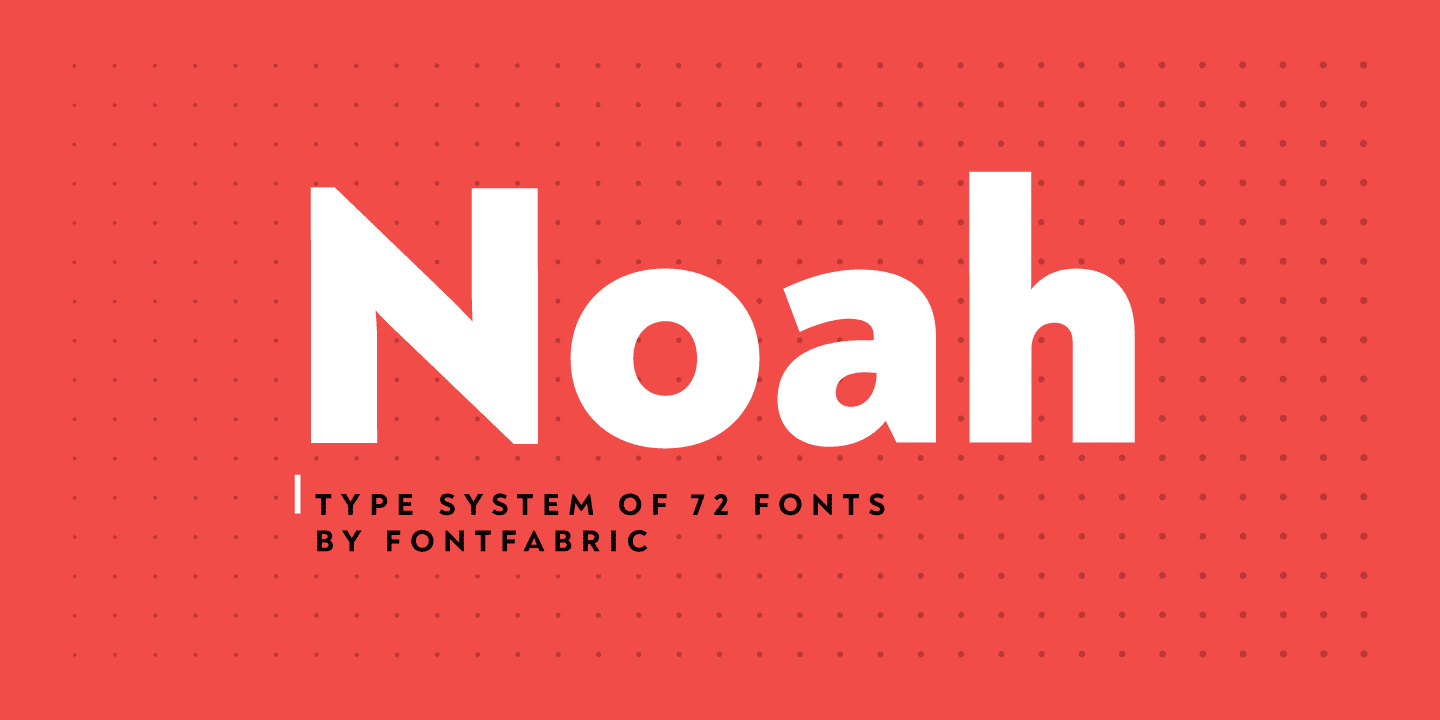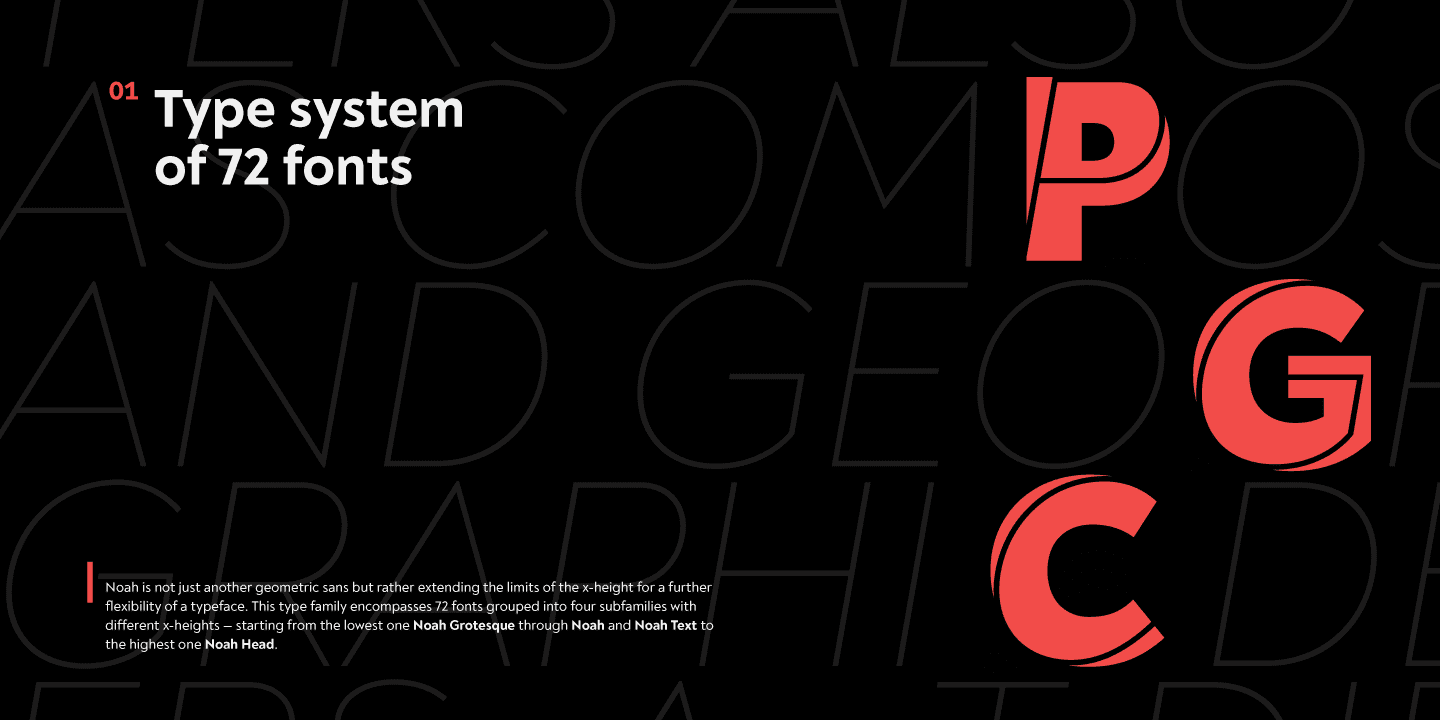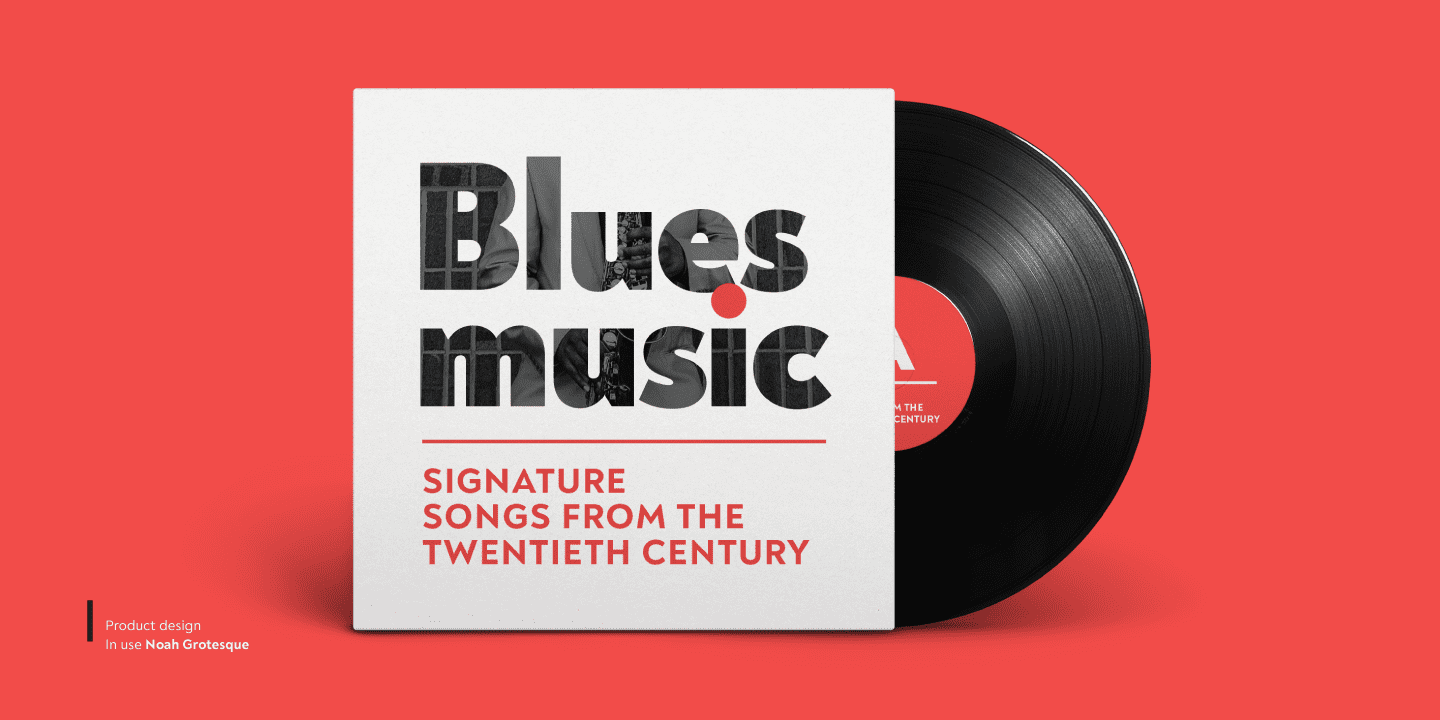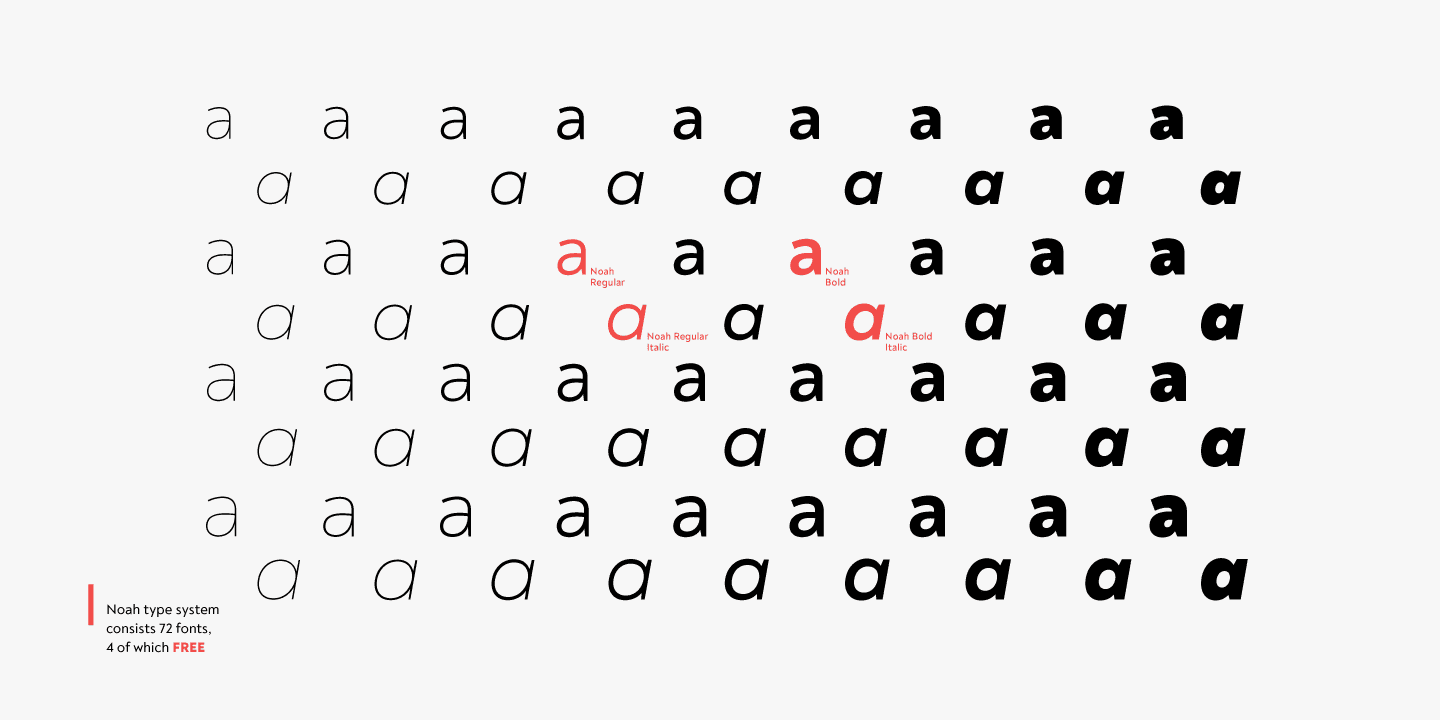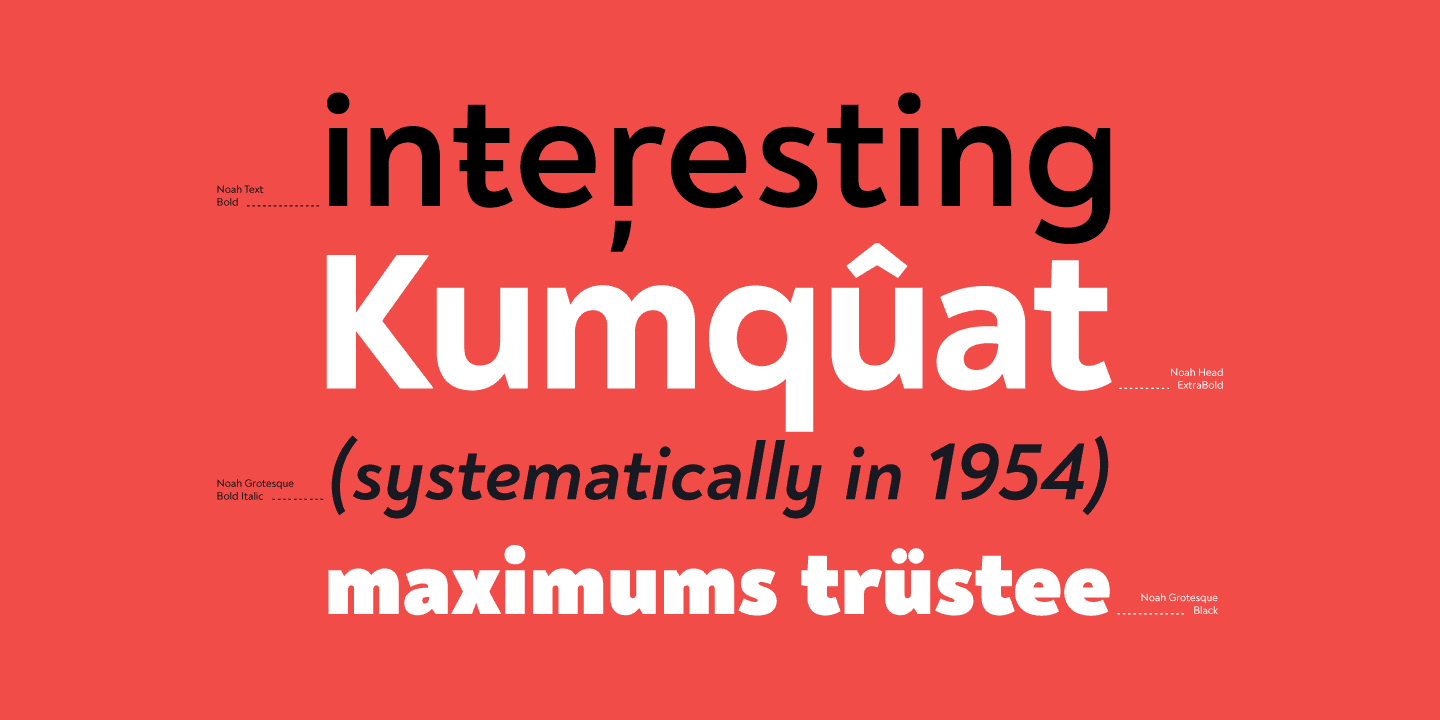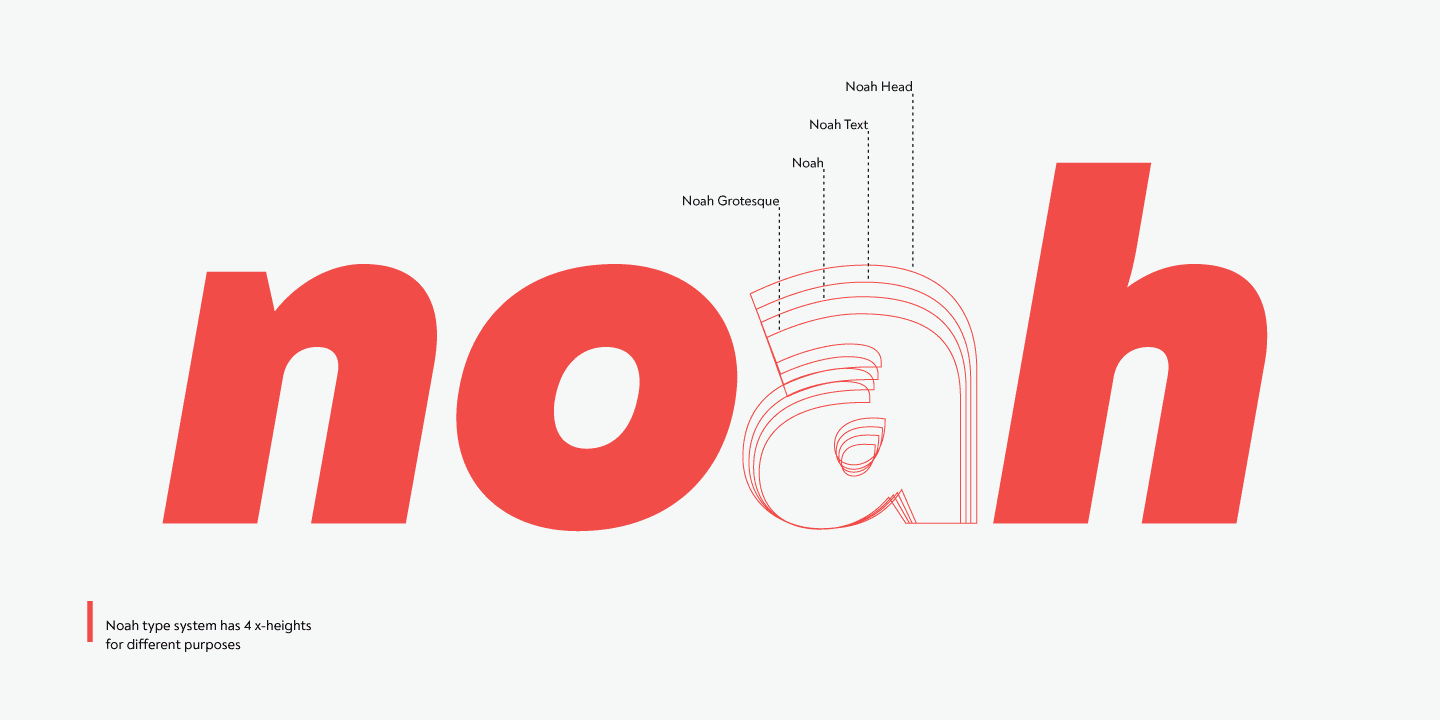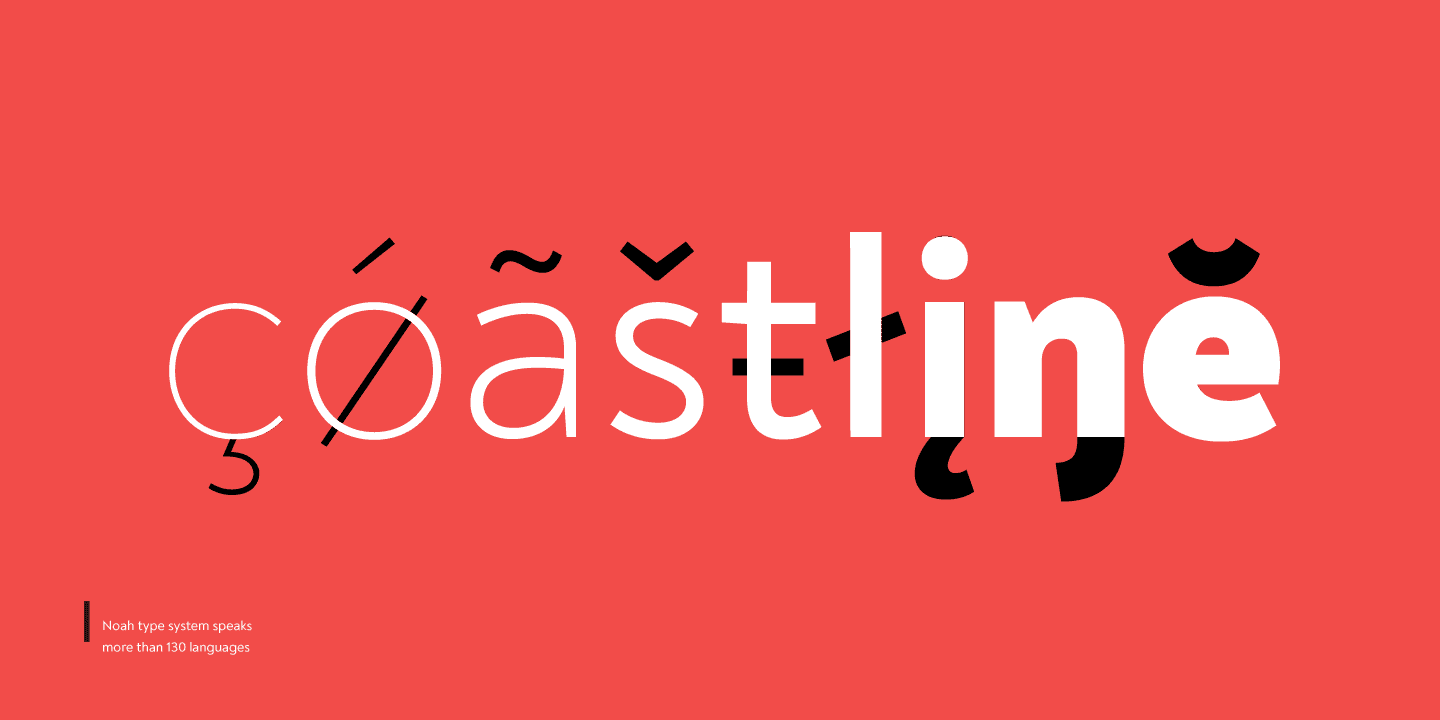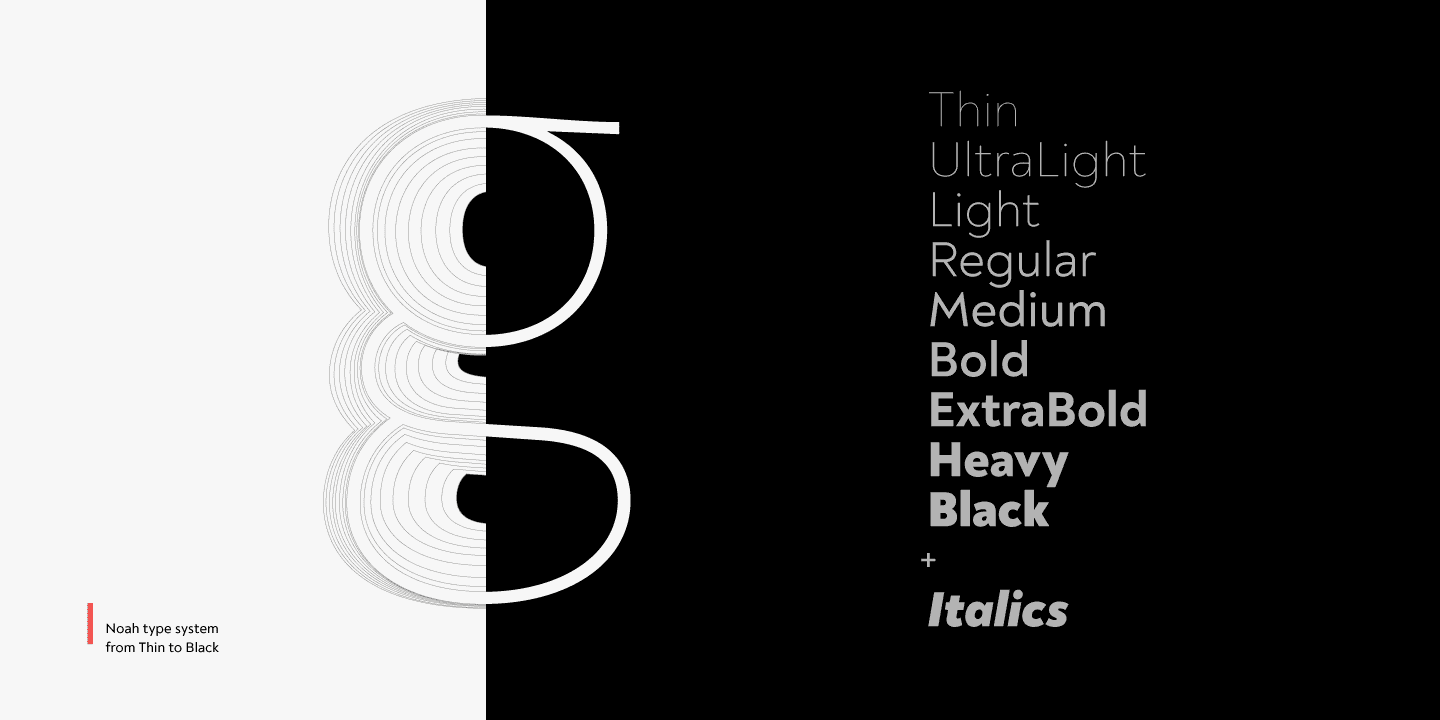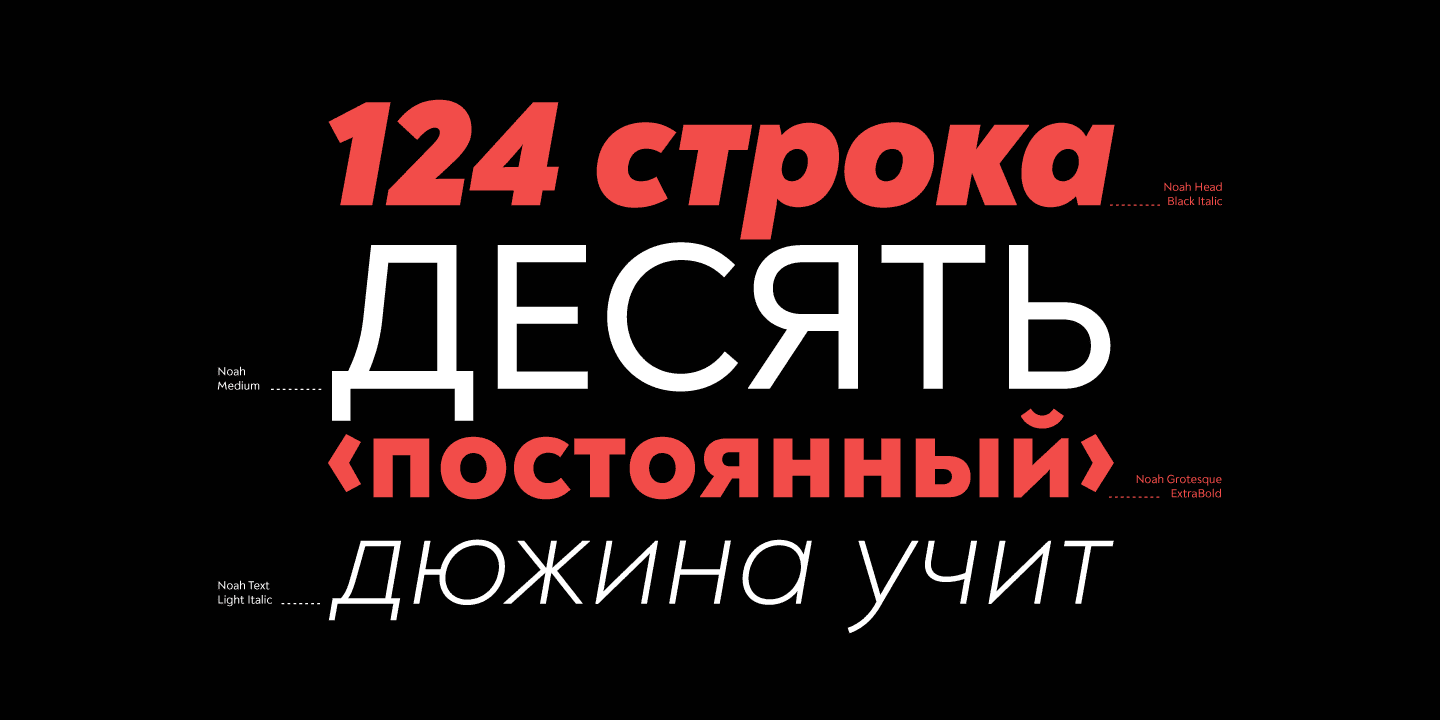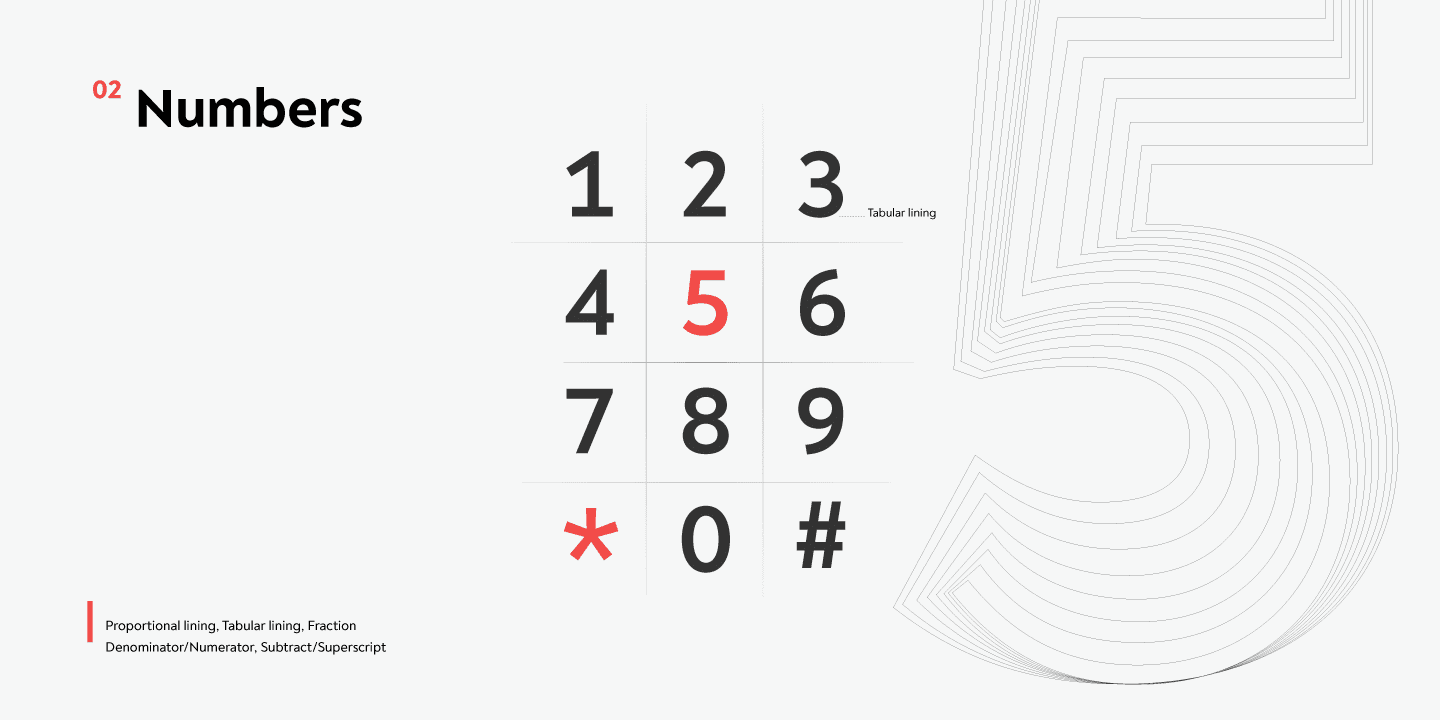
Noah Complete Family (72 fonts)
This type family consists of 72 fonts divided into four subfamilies with different x-heights – ranging from Noah Grotesque at the bottom, through Noah and Noah Text, and extending to the highest one – Noah Head. The entire set includes styles from Thin to Black, with matching true italics and supports Extended Latin and Cyrillic scripts in more than 130 languages.
The inclusion of terminals with a humanistic flavor and typographic letter alternates, such as the binocular “g” or the geometric “a”, offers a blend of the best aspects of both geometric and grotesque typeface classics.
Features:
• Over 650 glyphs in 72 styles (Thin to Black)
• Extended Latin and Cyrillic scripts for more than 130 languages;
• 4 different x-heights;
• Normal width proportions;
• Moderate contrast and vertical stress;
• Geometric characteristics and terminals with humanistic flavor.
Baltic, Central/Eastern Europe, Cyrillic, Romanian, Turkish, Western Europe
OpenType features: Ligatures, Discretionary Ligatures, Alternates, Contextual Alternates, Fractions, Superscript, Subscript